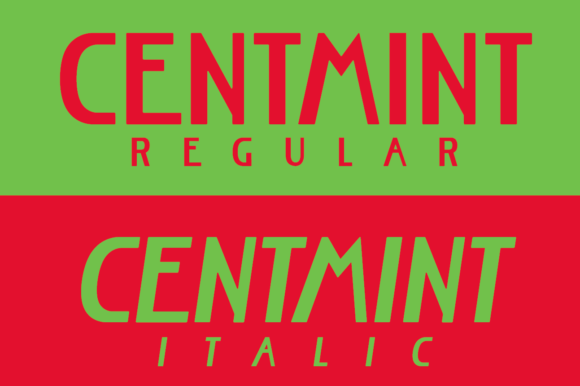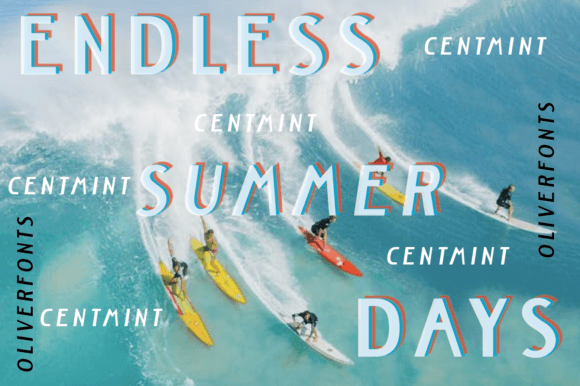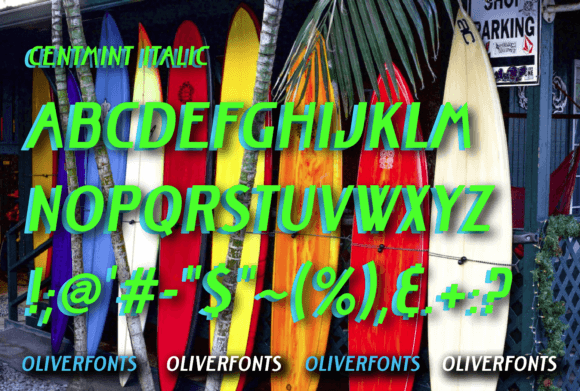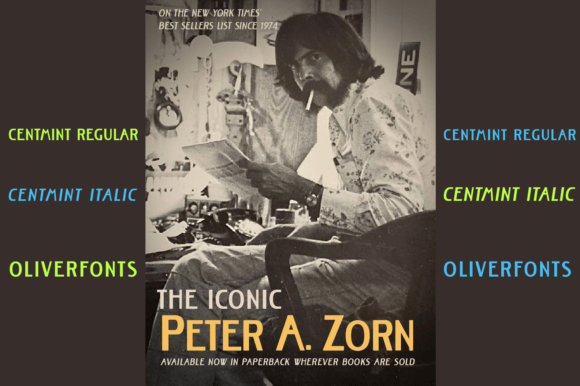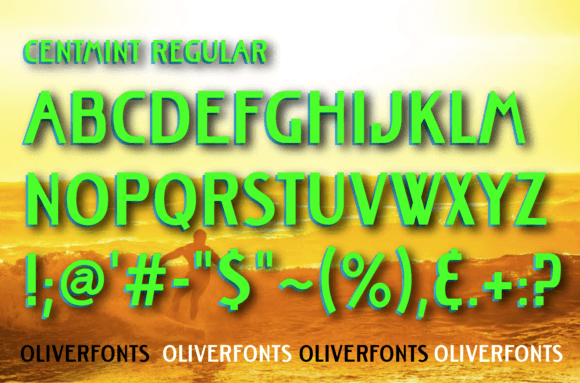
Introducing Centmint Font: Elevate Your Designs with a Fresh, Bold, and Vintage Twist
In the world of typography, fonts play a crucial role in conveying messages, setting tones, and creating visual identities. For designers, crafters, and creative enthusiasts, finding the perfect font can be a game-changer. This is where Centmint Font comes into play – an all-caps, fresh, bold, and vintage-looking sans-serif font that is about to become an indispensable asset in your font library.
What is Centmint Font?
Centmint Font is a unique, all-caps sans-serif font that exudes a sense of freshness, boldness, and vintage charm. Its distinctive style makes it versatile enough to be used across various topics and projects, from branding and advertising to packaging and digital media. Whether you’re working on a modern design or a retro-inspired project, Centmint Font has the potential to elevate your creations and make them stand out.
Key Features of Centmint Font
- All-Caps Design: Centmint Font is an all-caps font, which gives it a strong, confident, and assertive look. Perfect for headlines, titles, and short phrases, it demands attention and makes a lasting impression.
- Fresh and Bold: The font’s bold design ensures that your text doesn’t go unnoticed. Its fresh take on traditional sans-serif fonts makes it ideal for projects that require a modern edge.
- Vintage-Looking: Despite its modern appeal, Centmint Font carries a vintage vibe that adds a touch of nostalgia and sophistication to your designs. This unique blend of old and new makes it incredibly versatile.
- Versatility: One of the standout features of Centmint Font is its versatility. It can be used across a wide range of projects, including but not limited to, logos, posters, flyers, social media graphics, and website headers.
Why Choose Centmint Font?
With so many fonts available, why should Centmint Font be your go-to choice? Here are a few compelling reasons:
- Unique Style: Centmint Font offers a unique style that can help your designs stand out in a crowded market. Its distinctive vintage-modern fusion is sure to capture attention and leave a lasting impression.
- Easy to Read: Despite its bold and vintage look, Centmint Font maintains excellent readability, making it suitable for both short headlines and longer texts.
- Time-Saving: Having a font that can be used across various projects saves time and effort. You can rely on Centmint Font for a wide range of designs, reducing the need to search for different fonts for different projects.
- Enhances Creativity: With Centmint Font, your creative possibilities are endless. It can inspire new ideas and help you experiment with different design concepts.
How to Use Centmint Font Effectively
To make the most out of Centmint Font, consider the following tips:
- Pair it with Simplicity: Centmint Font’s bold and vintage style can be overwhelming if not balanced properly. Pair it with simpler fonts or elements to create a harmonious design.
- Experiment with Colors: Don’t be afraid to experiment with different colors. Centmint Font looks great in bold, bright colors as well as muted, pastel shades.
- Use it as a Headline Font: Its bold and attention-grabbing nature makes Centmint Font perfect for headlines and titles. Use it to draw attention to key messages or to create impactful headings.
- Consider the Context: While Centmint Font is versatile, it’s essential to consider the context and purpose of your design. Ensure that the font aligns with the message and tone you want to convey.
| Font Name | Centmint Font |
| Author | OLIVERFONTS |
Centmint Font is more than just a font – it’s a design asset that can elevate your creations and help you achieve your design goals. Its unique blend of freshness, boldness, and vintage charm makes it a valuable addition to any designer’s font library. Whether you’re working on a branding project, creating marketing materials, or simply experimenting with new design concepts, Centmint Font is sure to inspire and enhance your work.